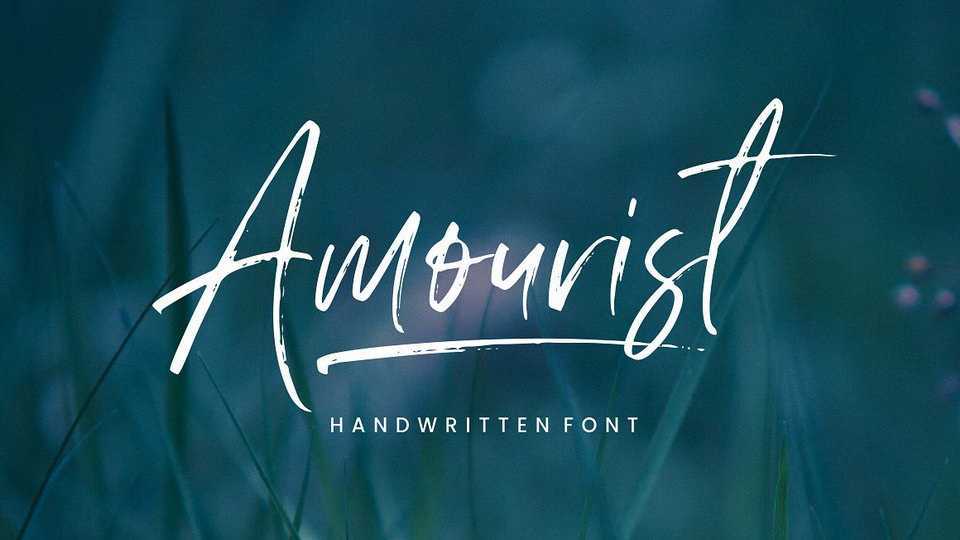
Download Amourist font, a natural handbrused font with a free flow. Perfect for logo, invitation, stationery, wedding designs, social media posts, advertisements, product packaging, product designs, label, photography, watermark, special events or anything.
Designer: Sronstudio